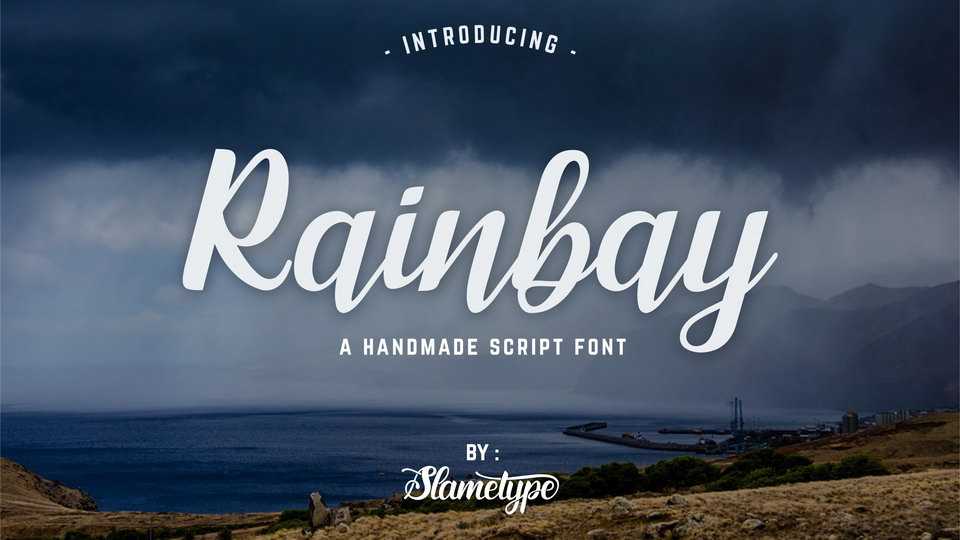
Download Rainbay font, a lovely modern calligraphy script font that has natural handmade syle. Great for blog titles, apparel prints, cards, social media posts and other craft designs.
Designer: Slametype